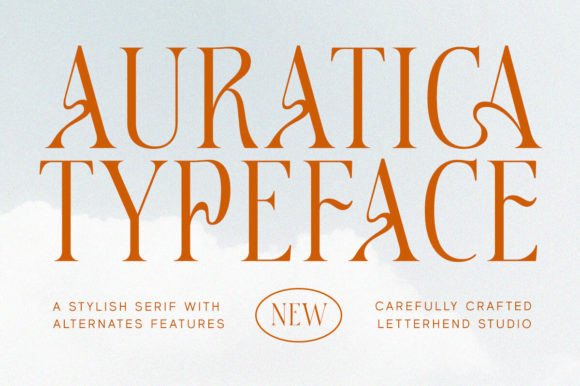
The Auratica Typeface: Elevate Your Designs with Elegance and Versatility
I’ll never forget the time I was working on a logo design project for a high-end fashion brand. I had spent hours brainstorming ideas, sketching out concepts, and refining my designs. But something was missing – the perfect font. That’s when I stumbled upon the Auratica Typeface, a stylish new serif font that has since become a staple in my design toolkit. In this article, I’ll share my experience with Auratica, its features, and how to make the most of this beautiful font.
• ✨ Unique Character Sets: Auratica offers alternative characters that allow you to experiment with different styles and add a touch of elegance to your designs.
• ✅ Highly Versatile: This font is perfect for a wide range of applications, from logos and invitations to magazines and packaging.
• ✅ Serif Sophistication: The serif design adds a level of sophistication and refinement to your text, making it ideal for formal and luxury brands.
• ⚠️ Glyph Overload: With so many alternative characters available, it can be overwhelming to navigate the glyph panel. Take some time to familiarize yourself with the font’s features.
• ⚠️ Kerning Issues: As with any font, you may encounter kerning issues, especially when using the alternative characters. Adjust the tracking and kerning to achieve the desired look.
The Story Behind Auratica: Designer Inspiration
The Auratica Typeface was designed with the intention of creating a font that exudes elegance and sophistication. Inspired by classic serif fonts, the designer aimed to create a modern and versatile font that would cater to a wide range of design applications. With its unique character sets and OpenType features, Auratica is perfect for designers looking to add a touch of luxury to their designs.
Q: What is the Auratica Typeface best suited for?
A: Auratica is perfect for logo design, branding, editorial design, packaging, and any formal or luxury design project.